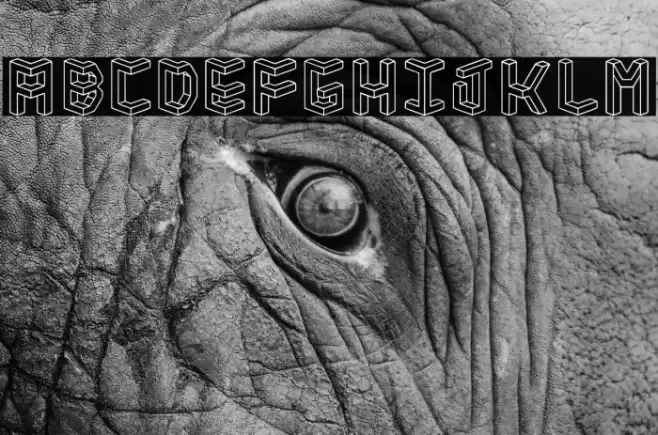
Isometria Club Font
Isometria Club Description
This font features a unique isometric design, creating a three-dimensional effect with each character. The letters are constructed with geometric precision, giving them a block-like appearance that stands out. The style is reminiscent of architectural drawings, with clean lines and sharp angles. Each character is outlined, enhancing the 3D illusion and adding depth. The font is highly decorative, making it suitable for eye-catching designs. Its distinct style is perfect for projects that require a modern and innovative look, such as posters, logos, and digital art.
A 3D isometric font with geometric, block-like characters from Uncategorized fonts.
- Proposed Projects: Ideal for posters, logos, digital art, and any design needing a modern, eye-catching font.